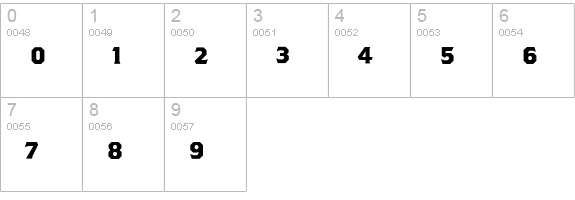
BrothersAlternates-Bold is a strong, high-contrast variant in the BrothersAlternates typeface family \xE2\x80\x94 well suited to headlines, attention-grabbing titles, and strong calls-to-action.
BrothersAlternates-Bold font is a modern and bold typeface that exudes strength and character. With its clean lines and distinctive style, this font is perfect for making a statement in your designs. Whether you're working on a logo, poster, or any other project that requires a bold touch, BrothersAlternates-Bold will not disappoint. The font is freely available to download at FontsMarket.com, making it easily accessible for all your design needs. Its versatility and timeless appeal make it a must-have addition to your font collection. Add a touch of boldness to your projects with BrothersAlternates-Bold font today!